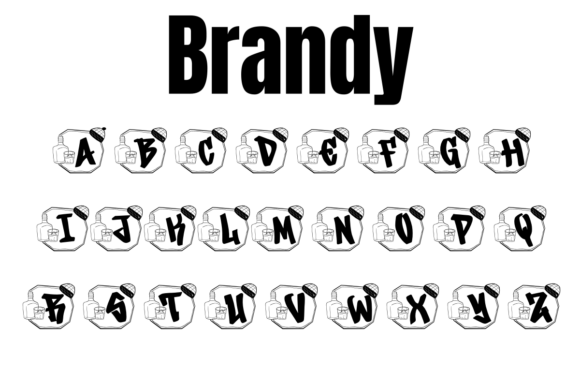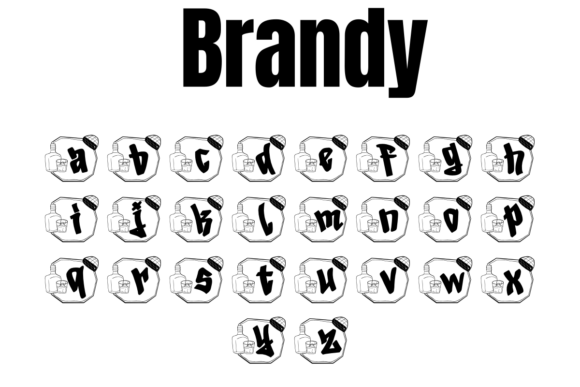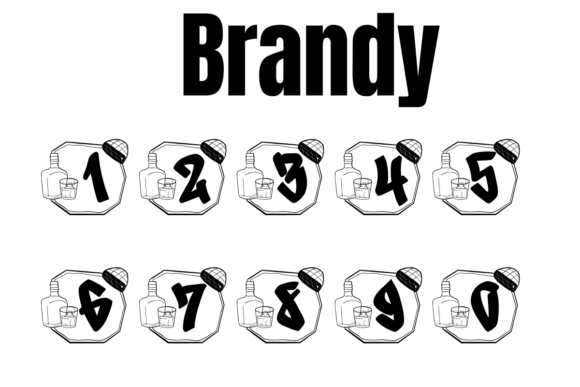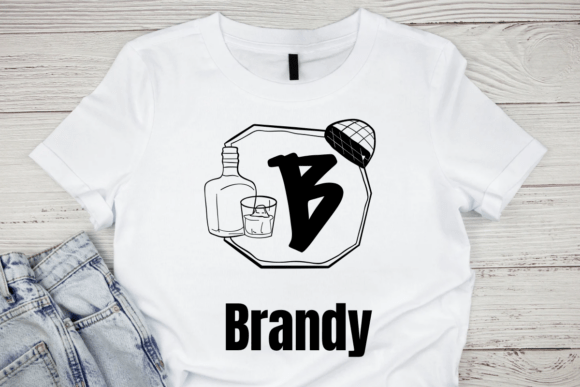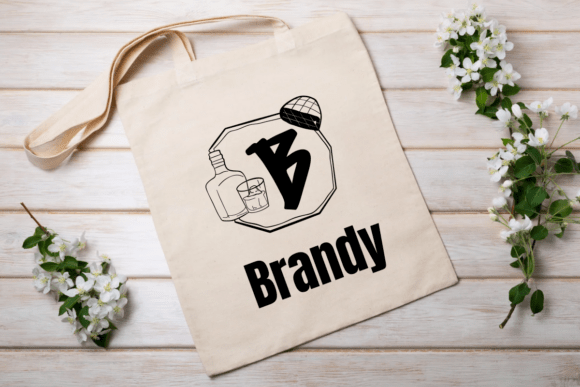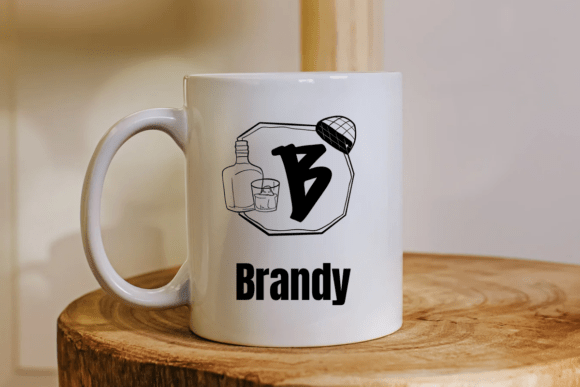
Brandy Font: Elevate Your Designs with a Cool Decorative Twist
Are you tired of using the same old fonts in your designs? Look no further than the Brandy Font! This cool decorative font is perfect for adding a unique touch to your creative projects. In this article, we’ll dive into the world of Brandy Font and explore how you can use it to take your designs to the next level.
What is Brandy Font?
Brandy Font is a decorative font that features a distinctive, stylish design. Its unique lettering style makes it perfect for use in a variety of creative projects, from crafting and scrapbooking to graphic design and digital art. With its bold, eye-catching appearance, Brandy Font is sure to add a touch of personality to any design.
Key Features of Brandy Font
- Unique lettering style: Brandy Font features a one-of-a-kind lettering style that sets it apart from other fonts.
- Decorative design: This font is perfect for adding a touch of elegance and sophistication to your designs.
- High-quality: Brandy Font is a high-quality font that is designed to produce crisp, clear results.
- Easy to use: Whether you’re a seasoned designer or a crafting novice, Brandy Font is easy to use and incorporate into your projects.
Uses for Brandy Font
Brandy Font is a versatile font that can be used in a wide range of creative projects. Here are just a few ideas to get you started:
- Crafting and scrapbooking: Add a touch of personality to your scrapbook pages, cards, and other crafts with Brandy Font.
- Graphic design: Use Brandy Font to create eye-catching posters, flyers, and brochures.
- Digital art: Incorporate Brandy Font into your digital art projects, such as illustrations and paintings.
- Sign making: Create eye-catching signs for your business or home with Brandy Font.
Tips for Using Brandy Font
Here are a few tips for getting the most out of Brandy Font:
- Experiment with different colors: Try pairing Brandy Font with different colors to create unique and eye-catching effects.
- Mix and match with other fonts: Combine Brandy Font with other fonts to create interesting and dynamic text effects.
- Use it sparingly: While Brandy Font is a beautiful font, it can be overwhelming if used too much. Use it sparingly to create emphasis and add interest to your designs.
Brandy Font is a cool decorative font that can add a unique touch to your creative projects. With its distinctive lettering style and high-quality design, it’s perfect for use in a variety of applications, from crafting and scrapbooking to graphic design and digital art. Whether you’re a seasoned designer or a crafting novice, Brandy Font is easy to use and can help take your designs to the next level. So why not give it a try and see the amazing results for yourself?
Brandy is a cool decorative font. Add it to your creative ideas and enjoy the results!